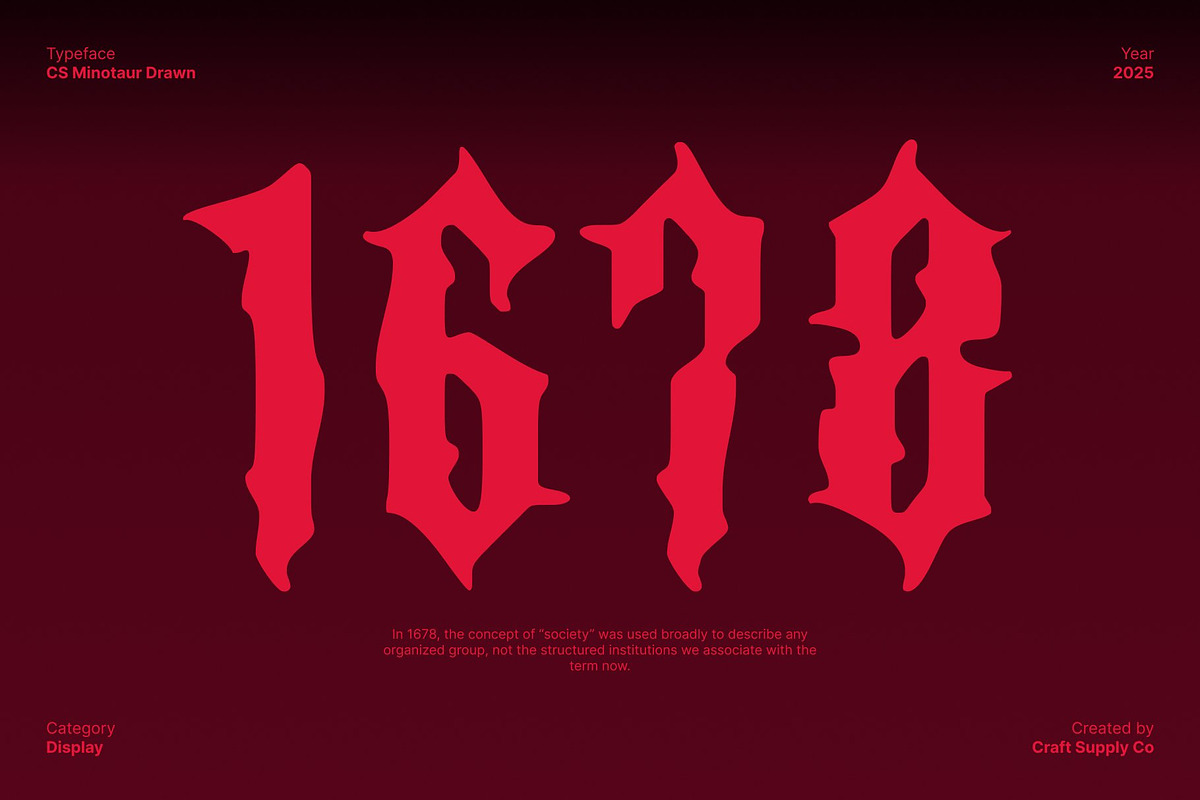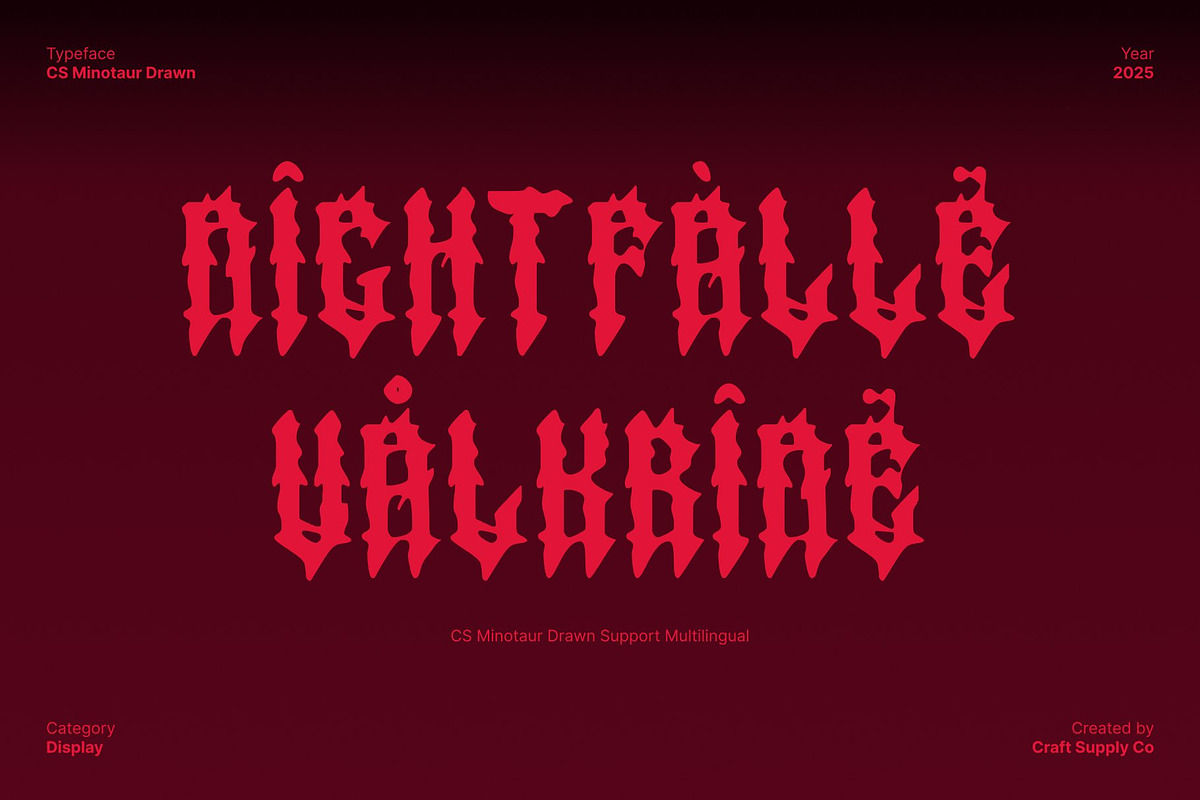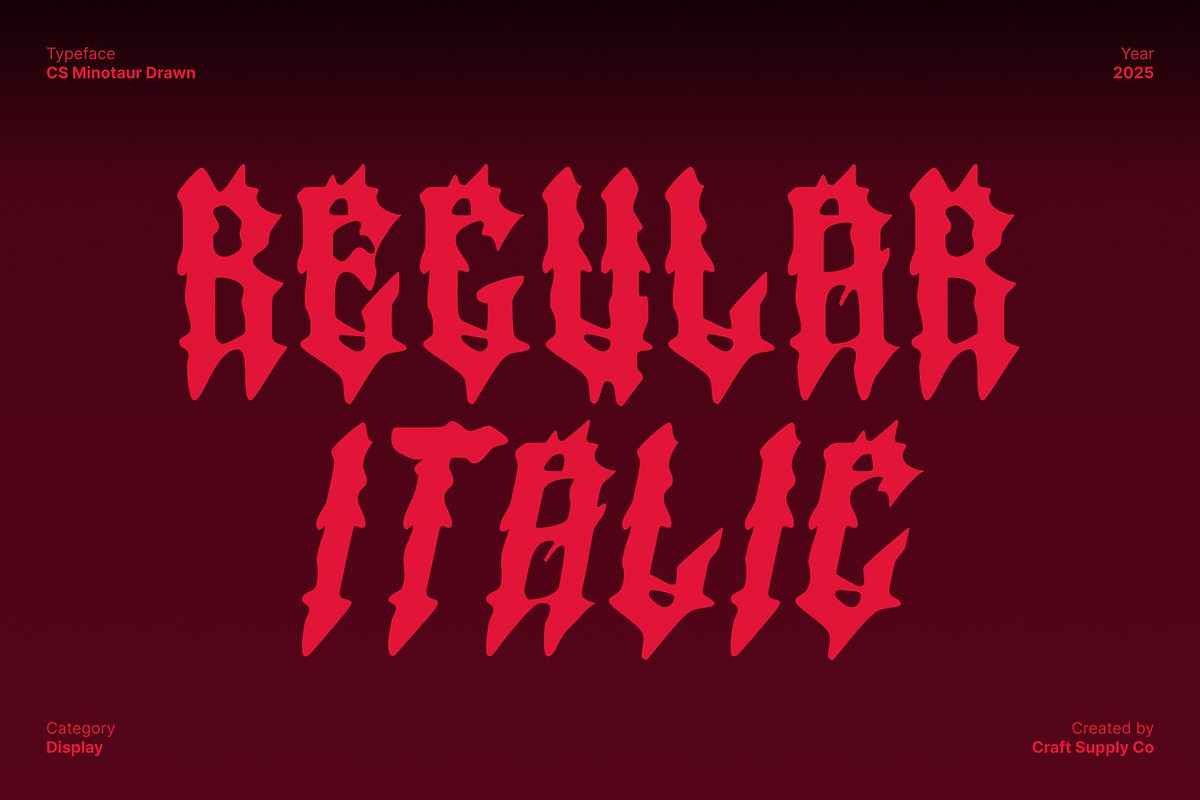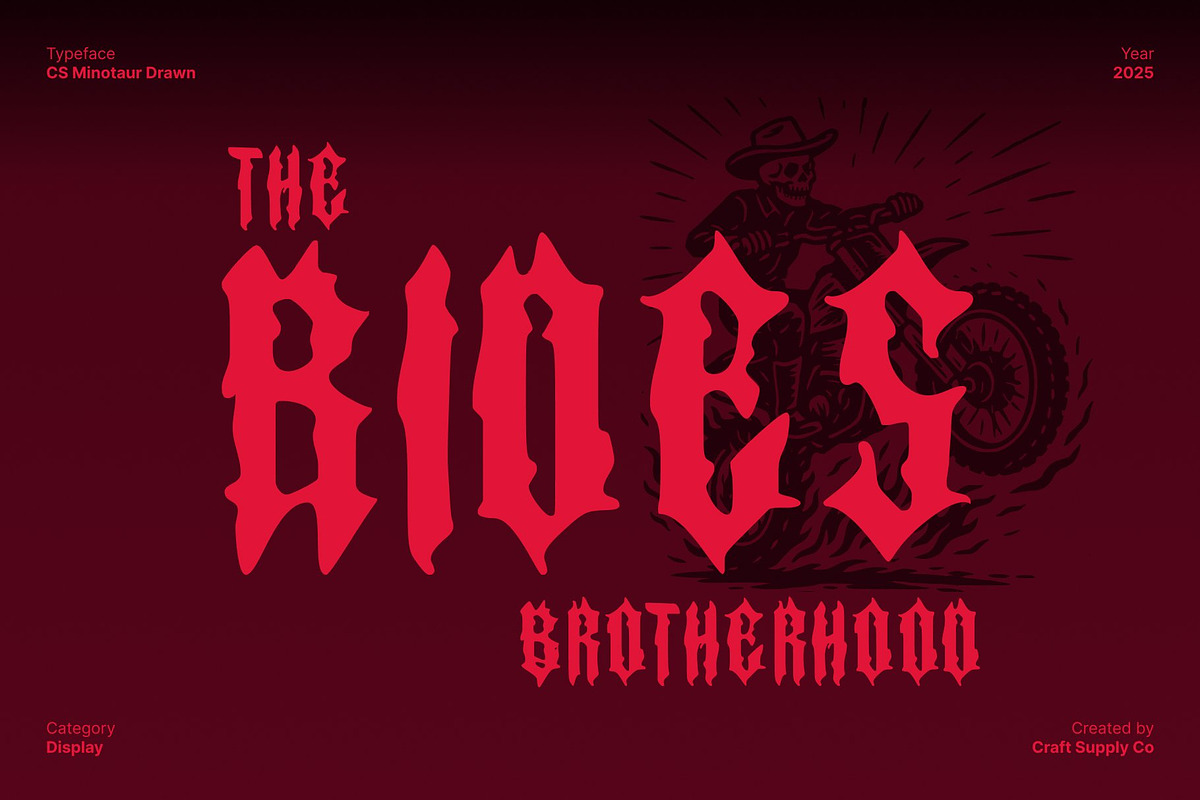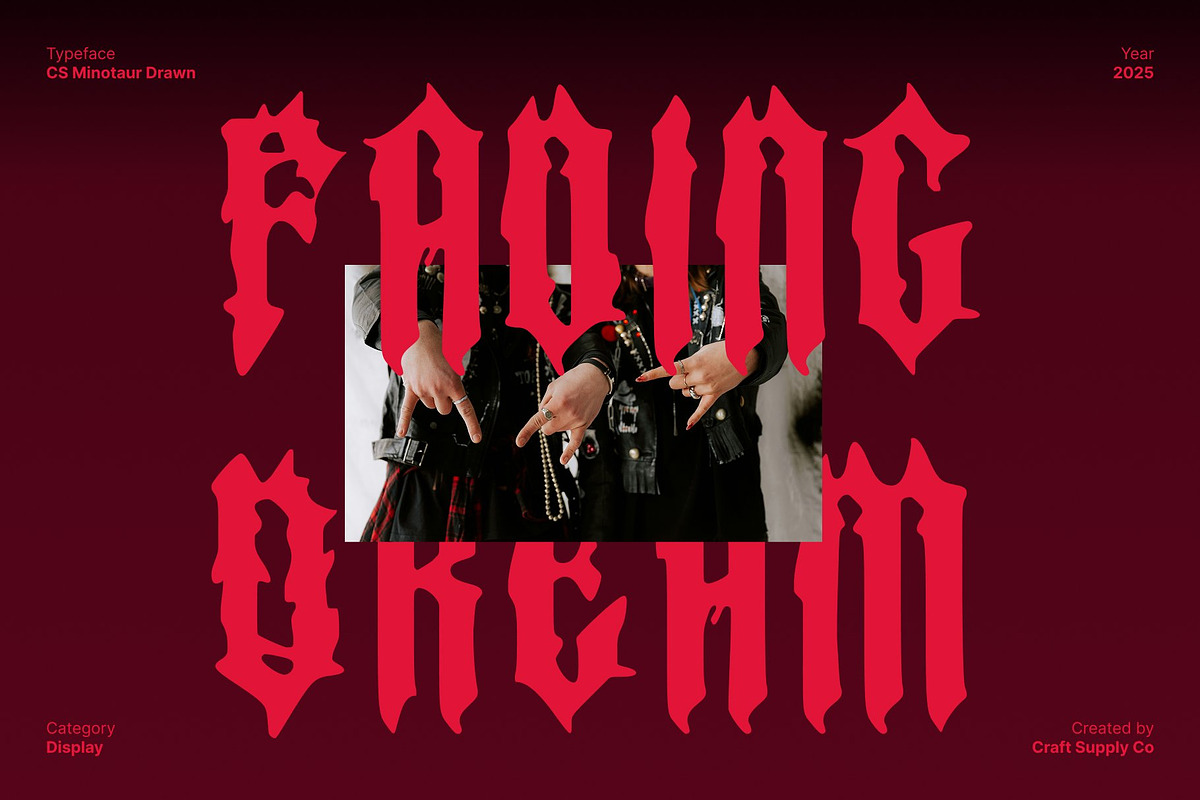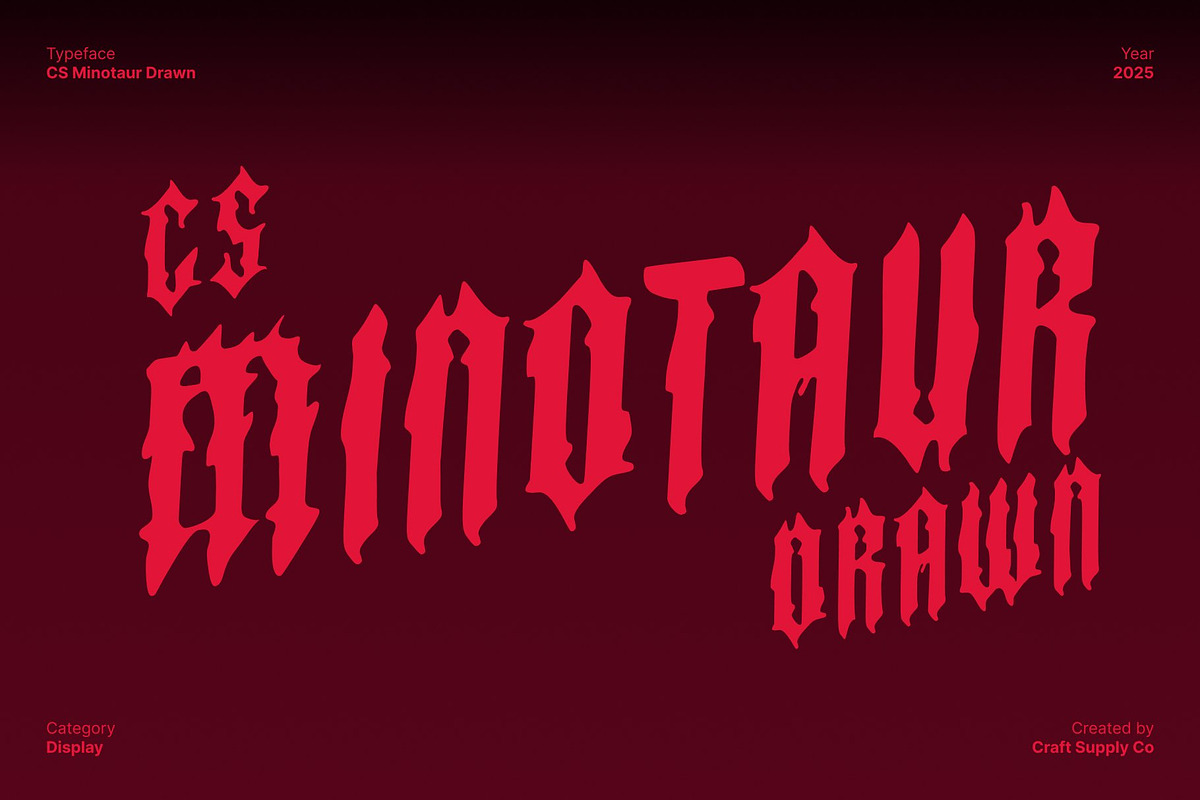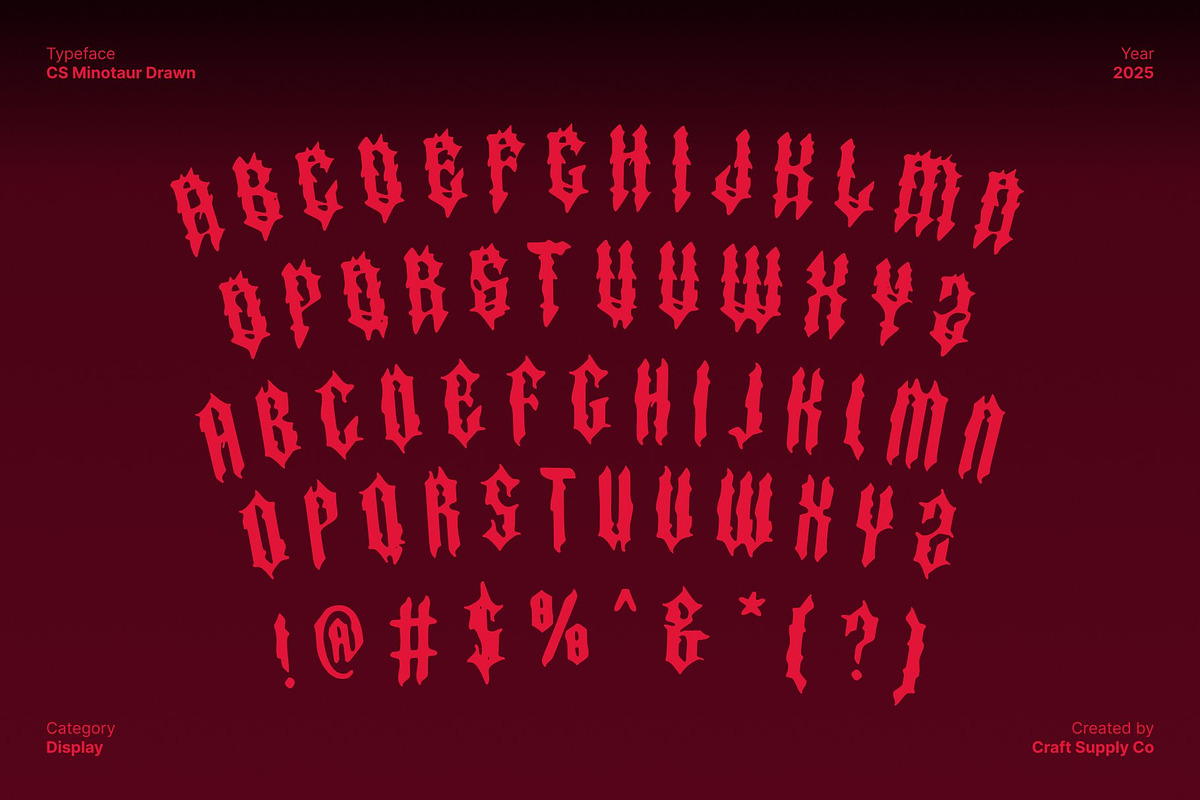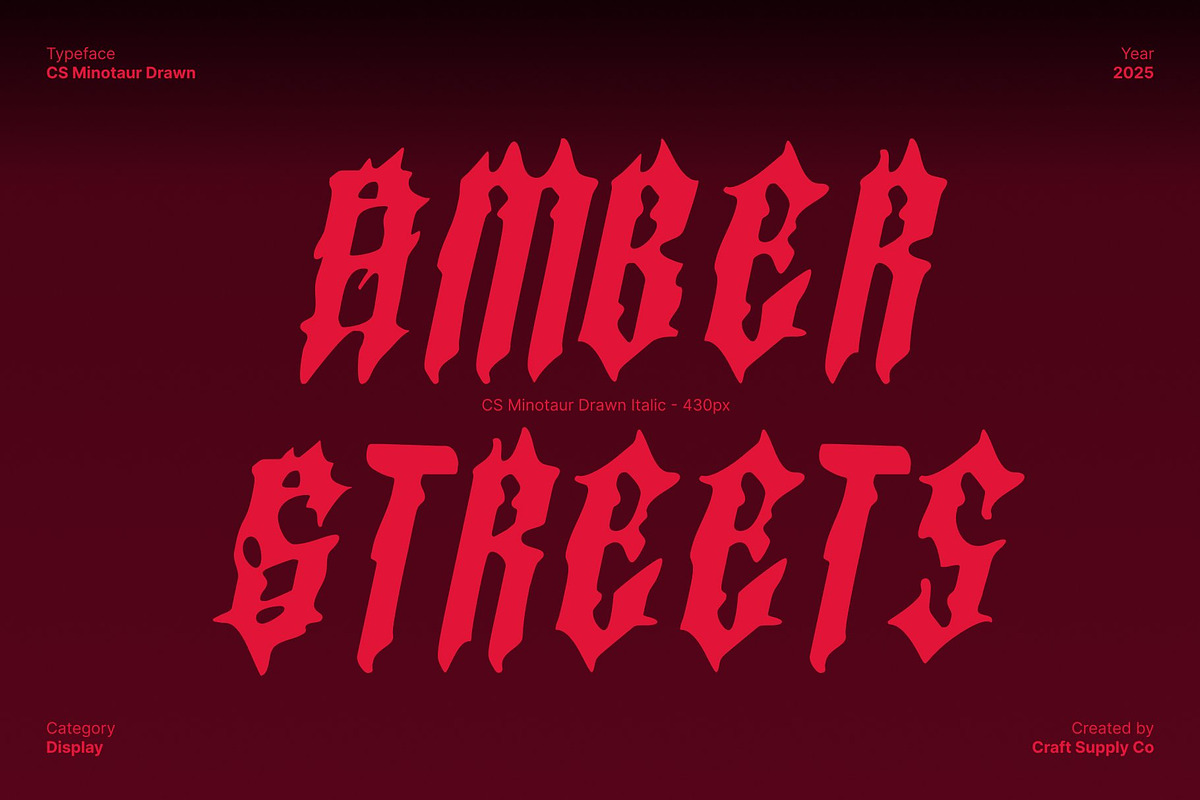
CS Minotaur Drawn
CS Minotaur Drawn – Raw Black Metal Font with Chaotic Hand-Drawn Energy
Unleash Raw Aggression and Extreme Aesthetics This is a raw and aggressive black metal display font crafted to embody the ferocity of extreme music. Defined by jagged spikes, chaotic strokes, and untamed character, this typeface radiates darkness, intensity, and raw power.
Chaotic Hand-Drawn Texture for Brutal Impact The drawn texture amplifies its wild personality, giving each stroke a gritty, hand-crafted brutality. This chaotic detailing emphasizes distortion and imperfection hallmarks of underground metal aesthetics. The result is a font that feels alive, abrasive, and impossible to ignore, making it ideal for designs that need unapologetically extreme expression.
Perfect for Band Logos, Posters, and Edgy Creative Projects Designed for high-impact visuals, thrives in band logos, music posters, album covers, horror-themed art, and edgy branding projects. Its brutal letterforms cut through any layout with intensity, commanding attention and setting a dark, powerful tone.
Capture the True Spirit of Extreme Music This is more than a font it’s a visual experience rooted in the essence of extreme music culture. It captures chaos, rebellion, and raw emotion in every line. Perfect for designers seeking something bold, unconventional, and atmospheric, it delivers the full power of black metal aesthetics in a striking, hand-drawn form.